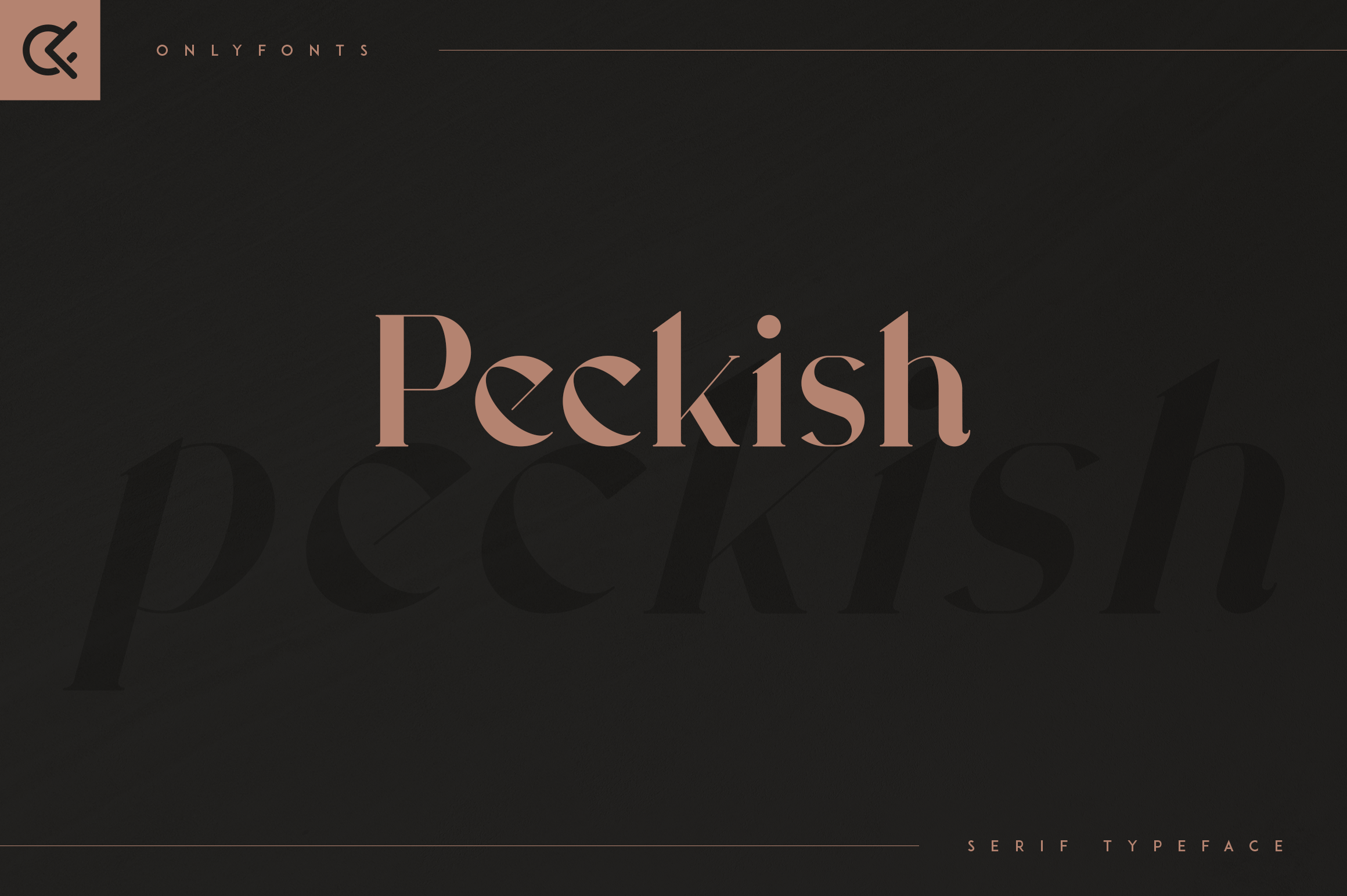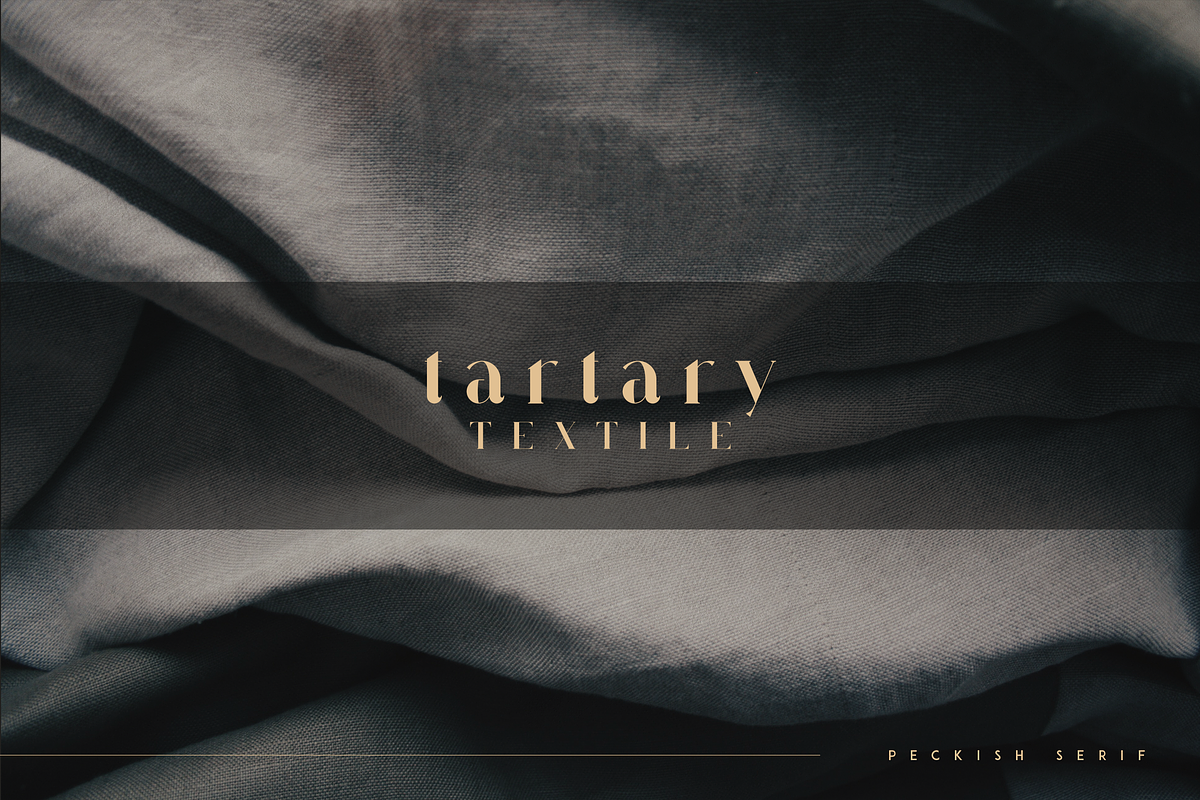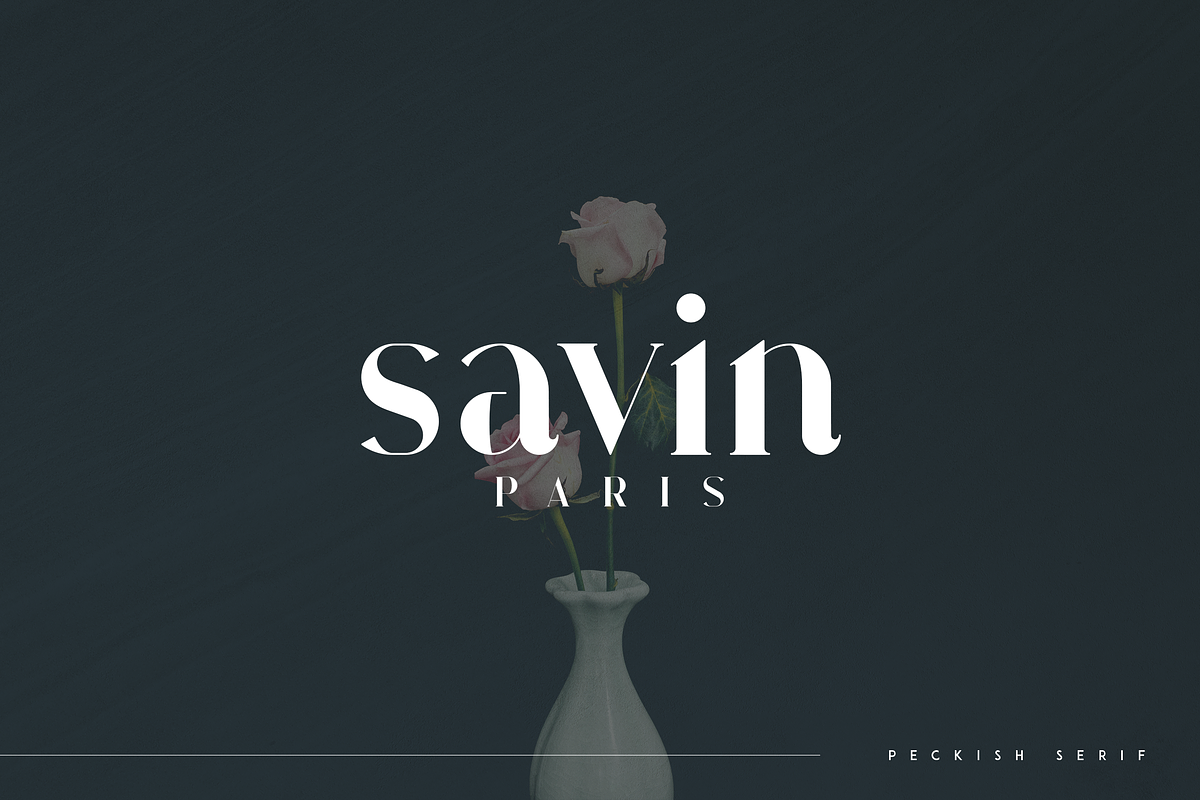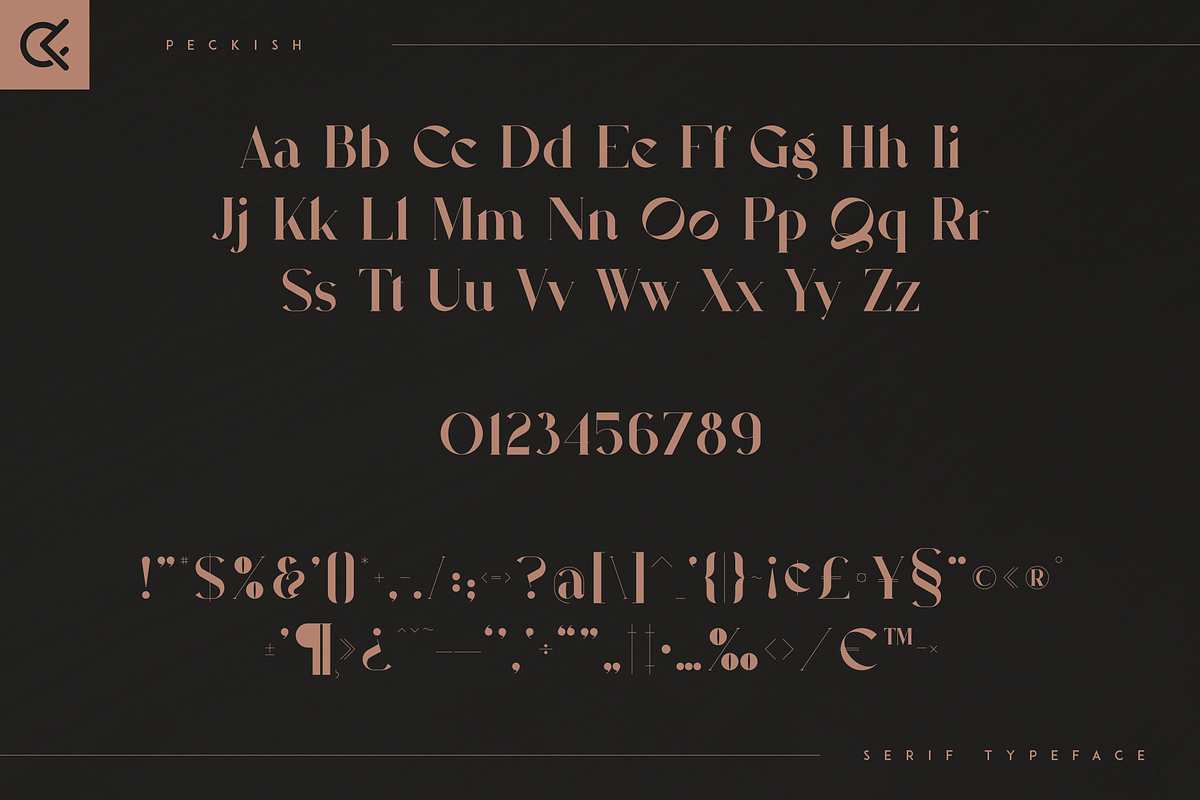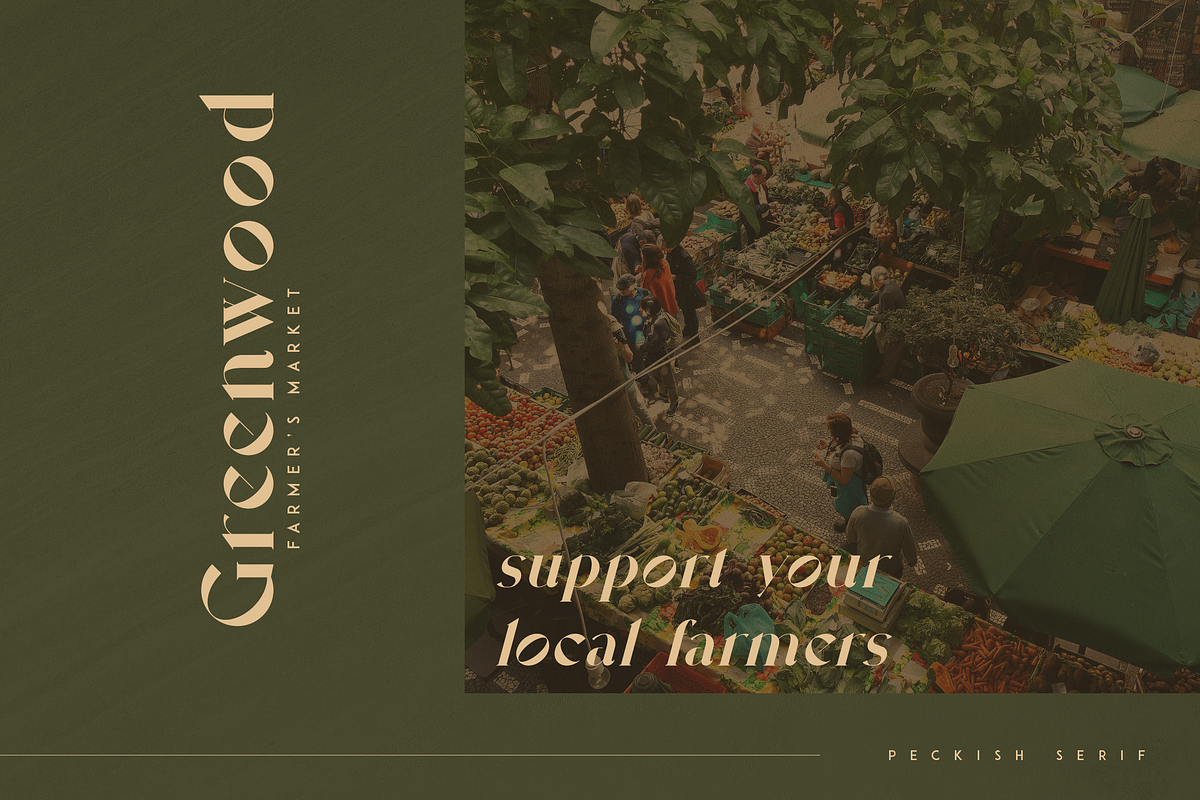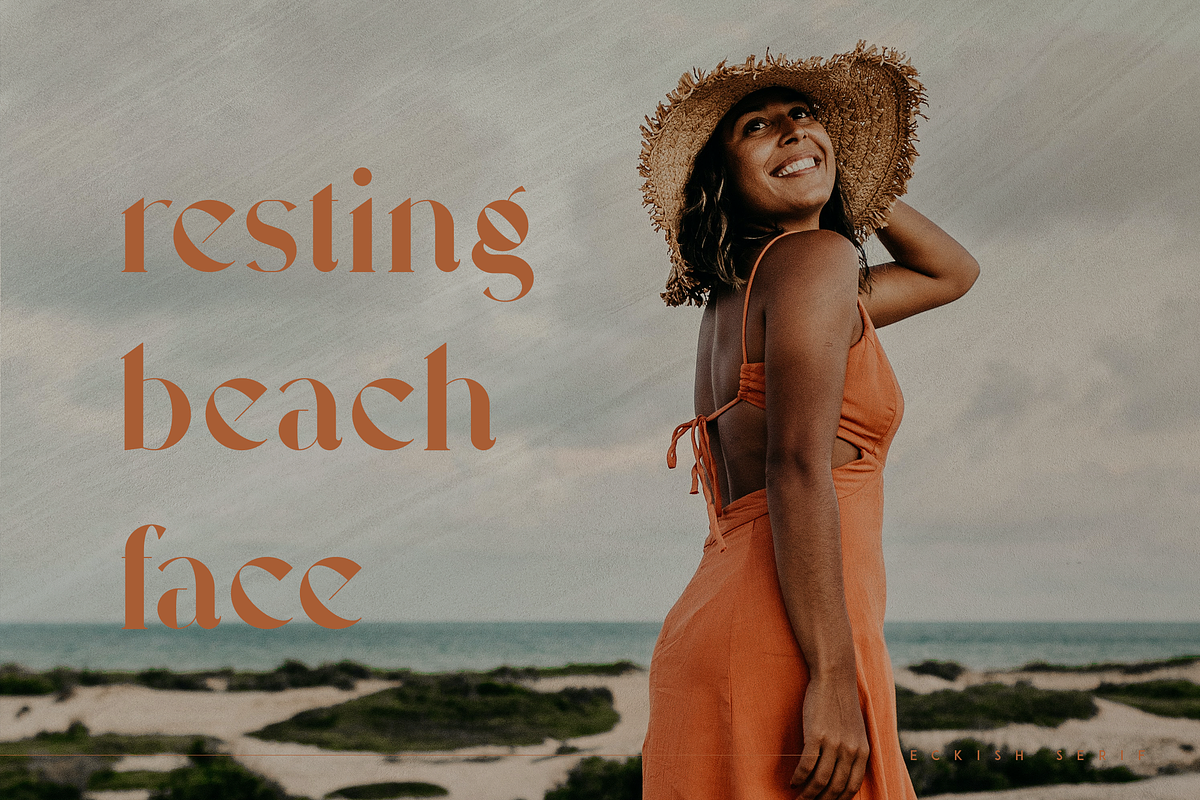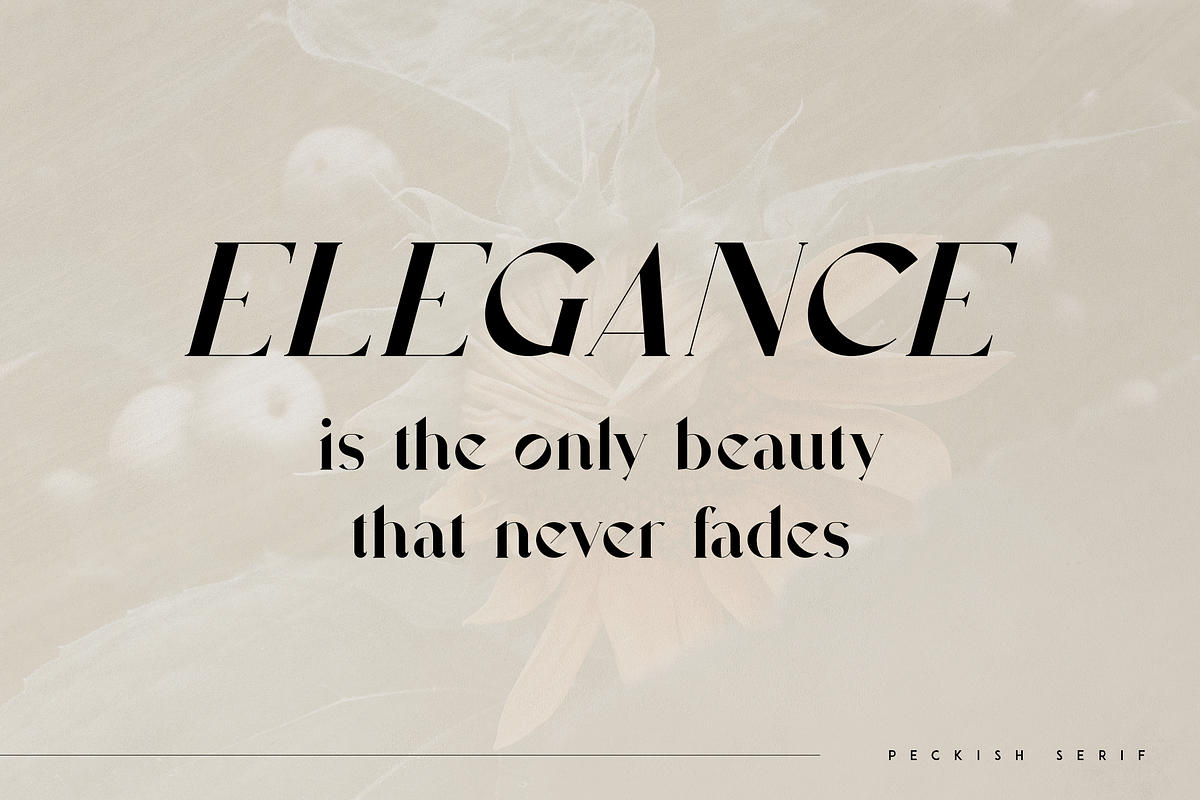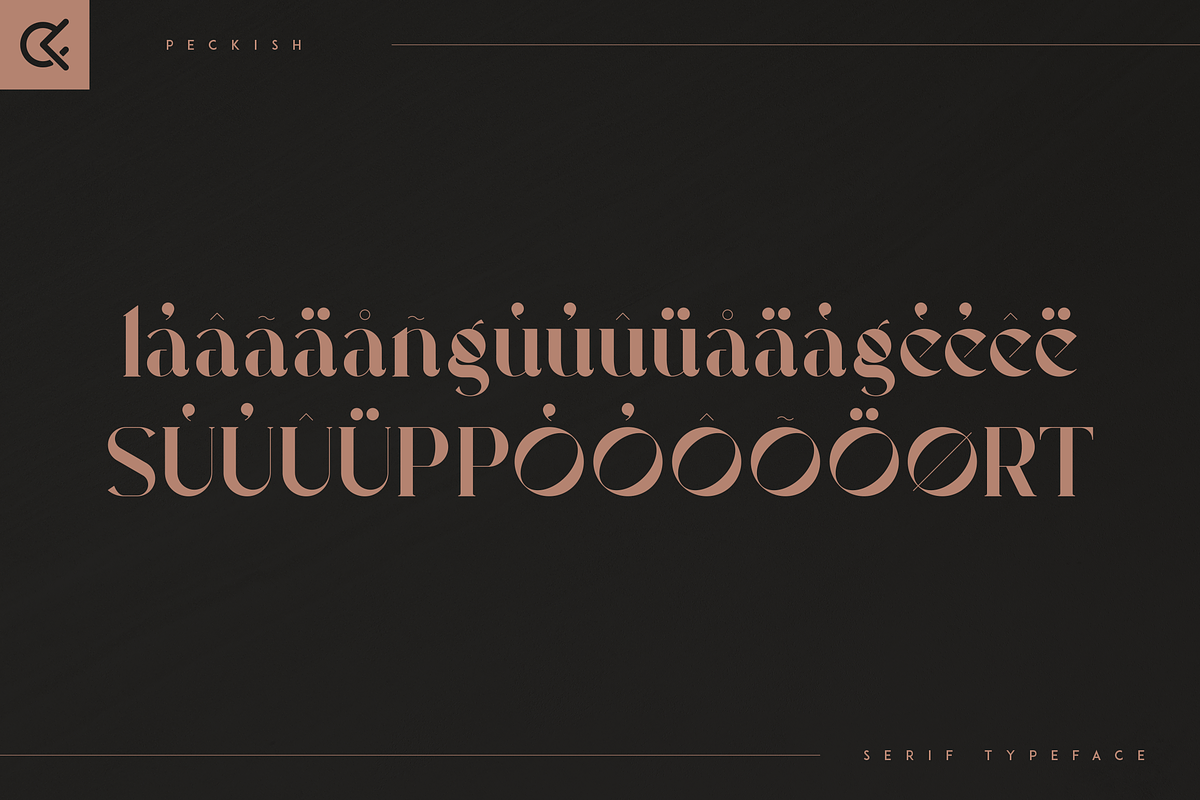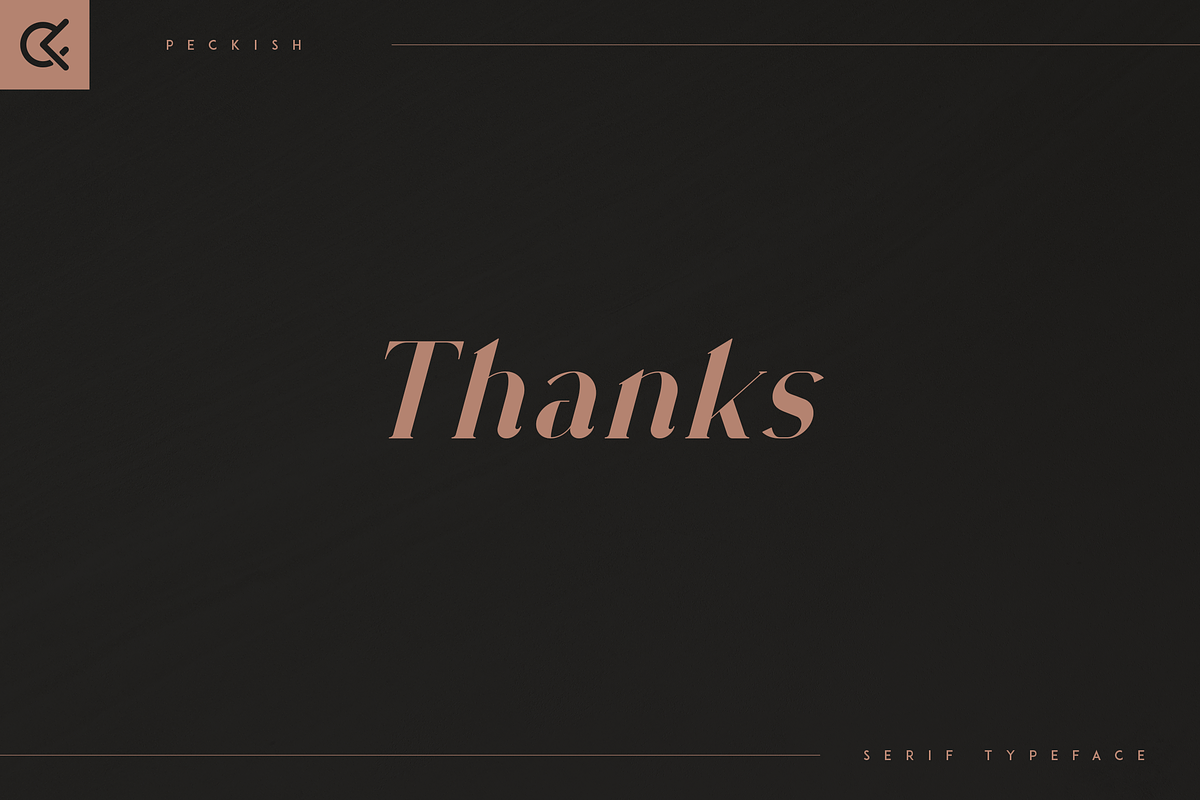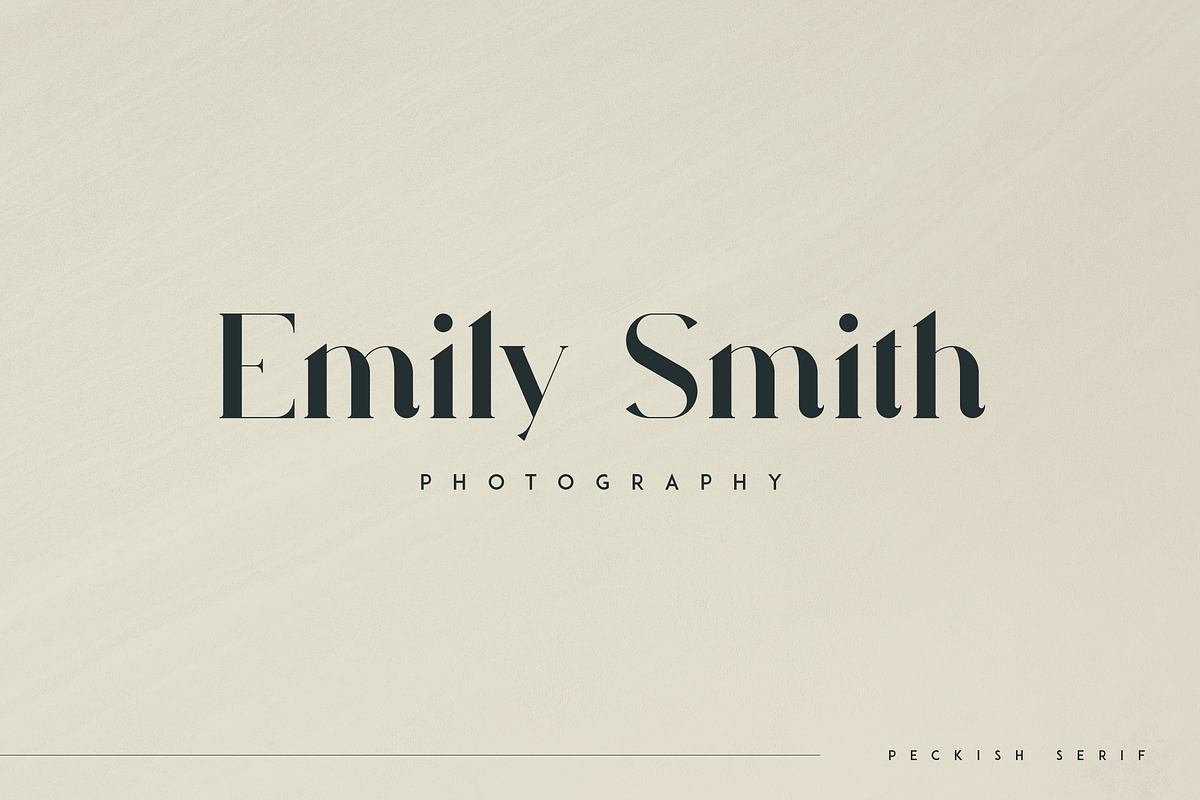
Peckish - Bold Serif Typeface
Introducing Peckish - Bold Serif Typeface
Peckish is elegant and organic font with multilingual support. It's a very versatile font that works great in large and small sizes.
This font is perfect for branding projects, home-ware designs, product packaging, magazine headers - or simply as a stylish text overlay to any background image.
- Uppercase, lowercase, numeral, punctuation & Symbol
- Italic